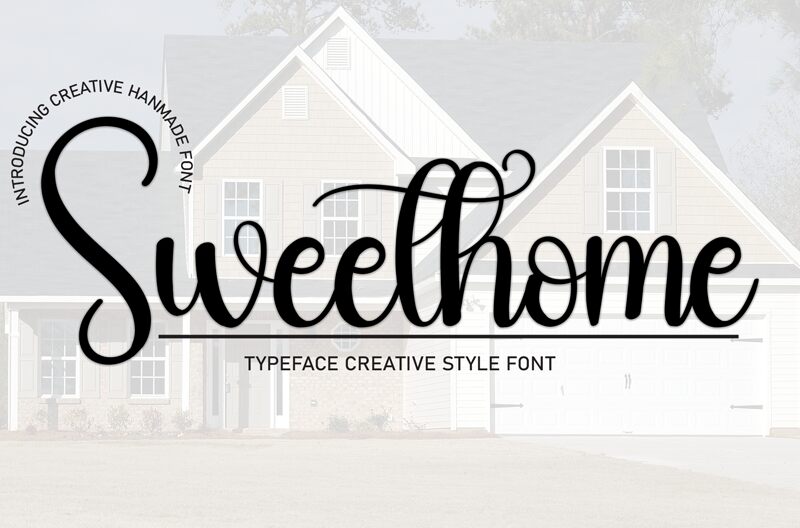
Sweethome
Sweethome is a captivating handwritten font designed by Andi Moz. Its flowing, organic strokes and playful ligatures evoke a sense of warmth and charm, making it an ideal choice for a variety of design applications. From wedding invitations to rustic branding, the Sweethome font effortlessly bridges the gap between elegance and casual sophistication. Its versatility allows it to seamlessly transition between formal and informal settings, leaving a lasting impression with its unique character and personality.
The font's distinct flourishes and calligraphic influences lend it a distinct, handcrafted feel, adding a touch of authenticity and personality to any project. Sweethome's versatility shines through in its ability to convey a range of moods, from romantic and whimsical to rustic and artisanal, making it a valuable asset for designers seeking to elevate their work with a distinctive, handwritten aesthetic.